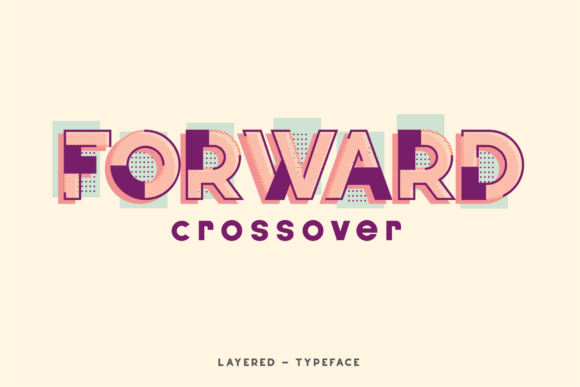
Journey into the world of modern typography with Forward Crossover, a display typeface that sets your designs apart. This masterpiece from Revorklabs isn't just another font; it's a visual symphony that dances off the screen.
Enter the realm of versatility with Forward Crossover, the ultimate choice for your resume. Its casual charm transforms your mundane words into eye-catching statements. Be it the digital landscape or the printed page, this font captivates attention effortlessly.
Unleash your creativity with Forward Crossover, a font that transcends boundaries. Its seamless flow adapts effortlessly to any background, whether vibrant or subtle, busy or calm. As a standalone headline, it shines like a beacon, demanding attention and leaving a lasting impression.
Break free from the ordinary and embrace the extraordinary with Forward Crossover. It's not merely a font; it's an experience, a statement, a testament to your discerning taste. Let your designs soar to new heights, leaving a trail of visual delight in their wake.
So, why settle for ordinary when you can captivate with Forward Crossover? Dive into the sea of creativity and let your designs bloom. The world of typography awaits your artistic touch.